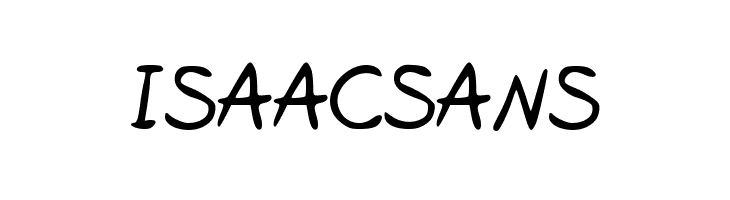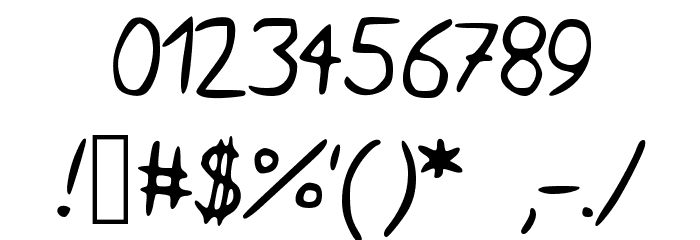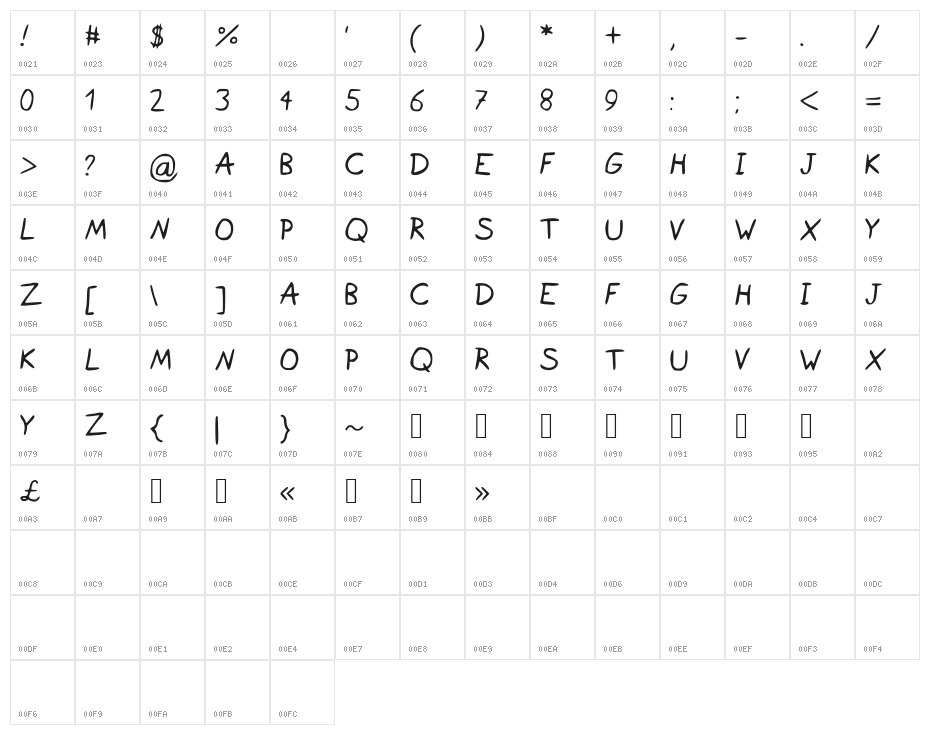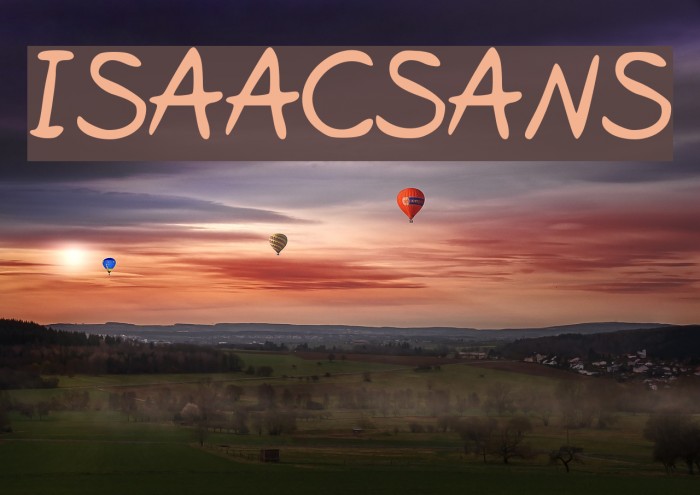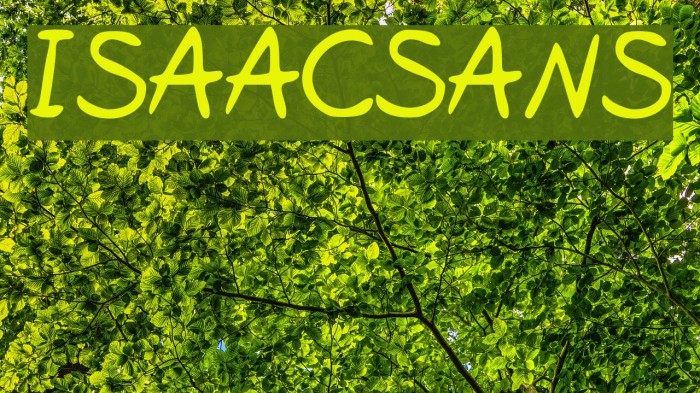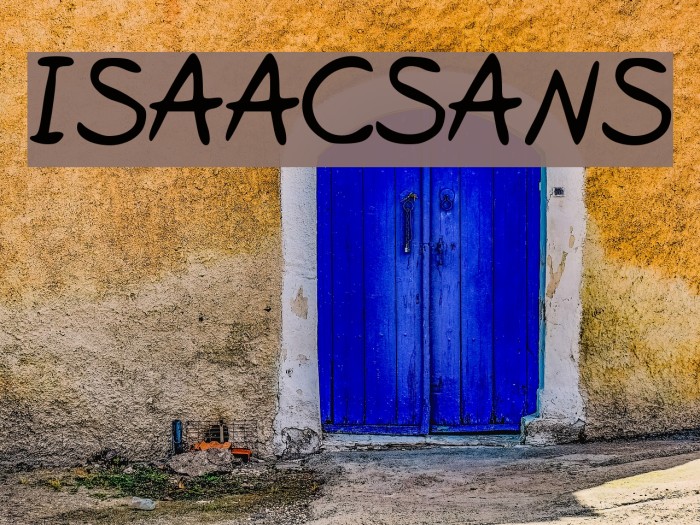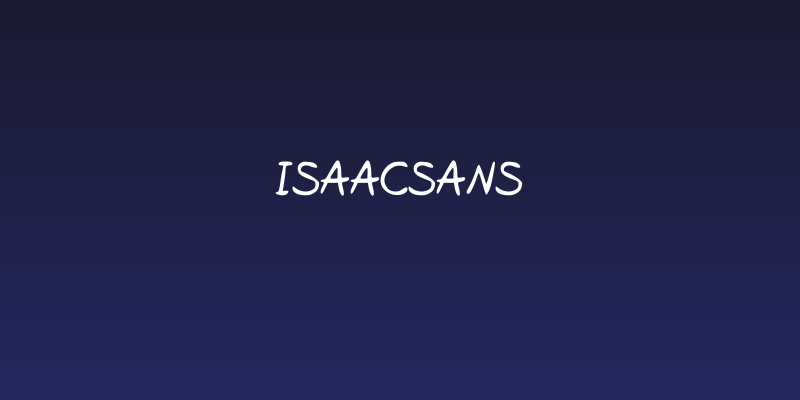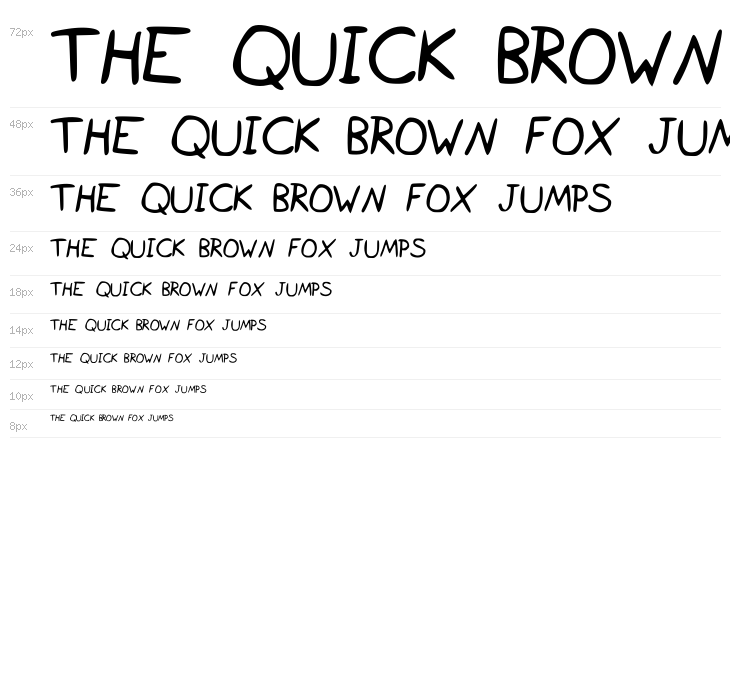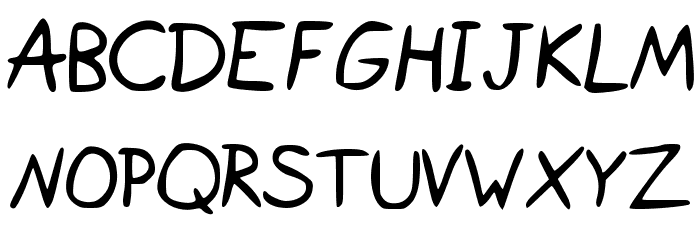
IsaacSans Font
IsaacSans Description
This font features a playful and casual handwritten style, characterized by its smooth, flowing curves and slightly uneven letterforms. The uppercase and lowercase letters maintain a consistent style, with rounded edges and a friendly appearance. The numerals and special characters follow the same aesthetic, ensuring a cohesive look across all text. This font exudes a sense of approachability and informality, making it ideal for projects that require a personal touch. Its legibility is maintained despite the informal style, making it suitable for a variety of uses.